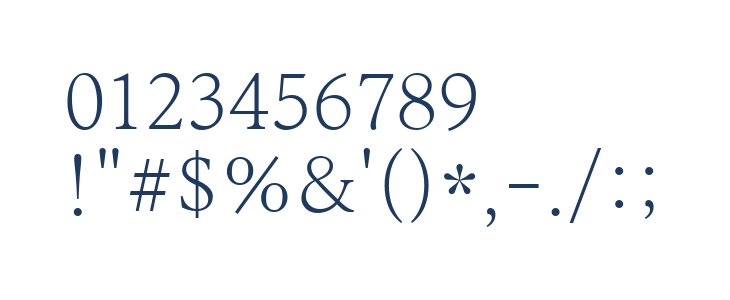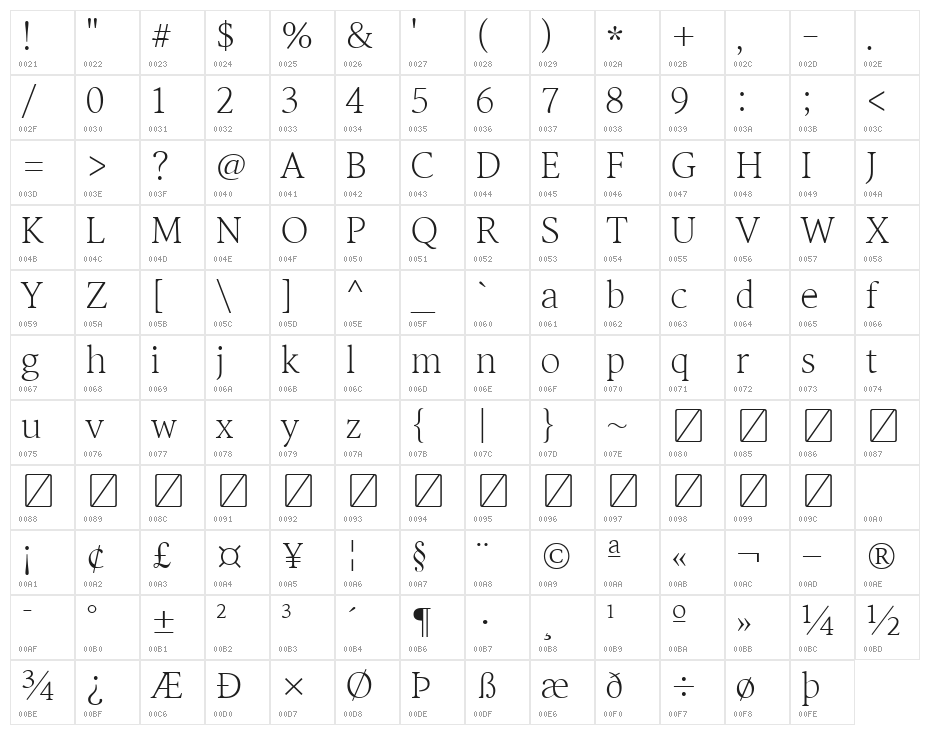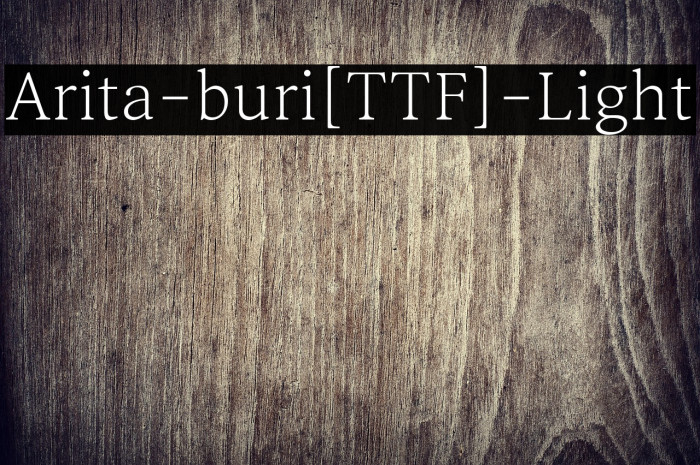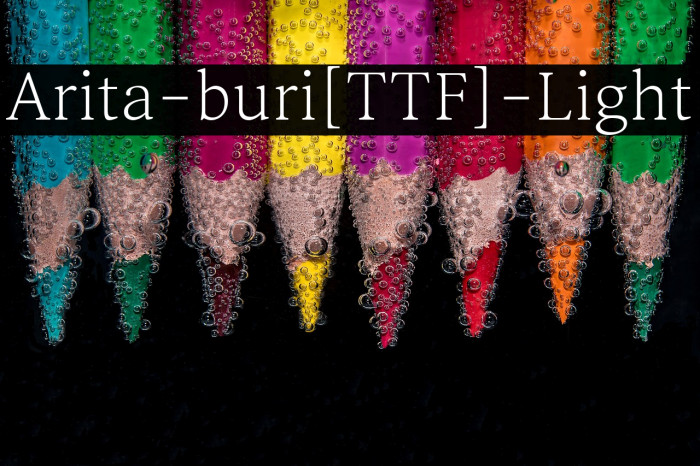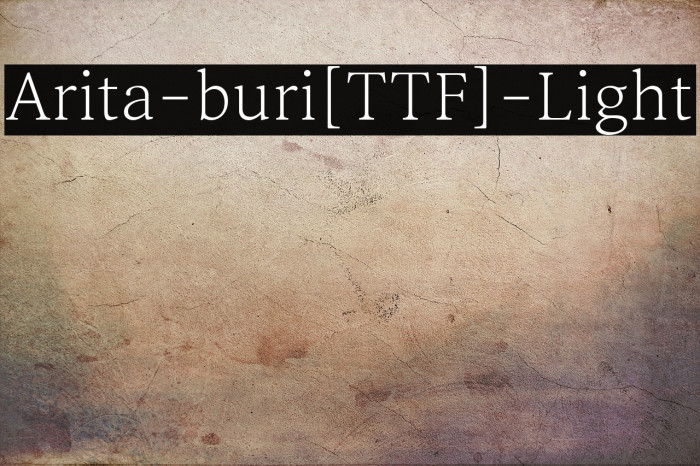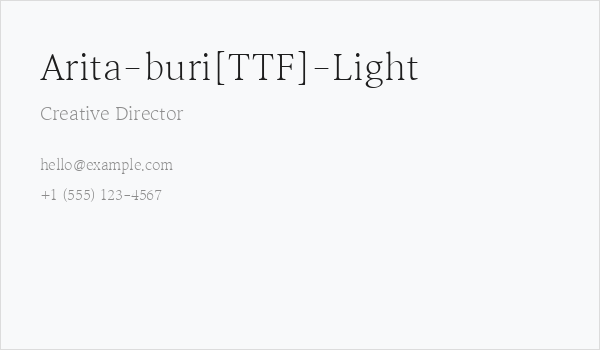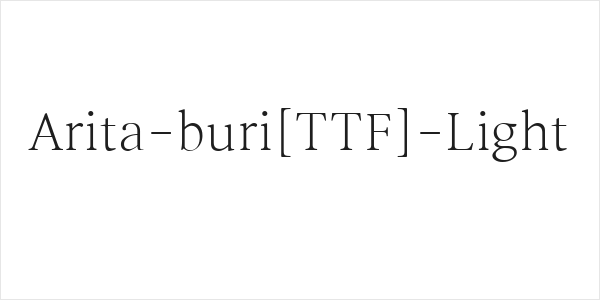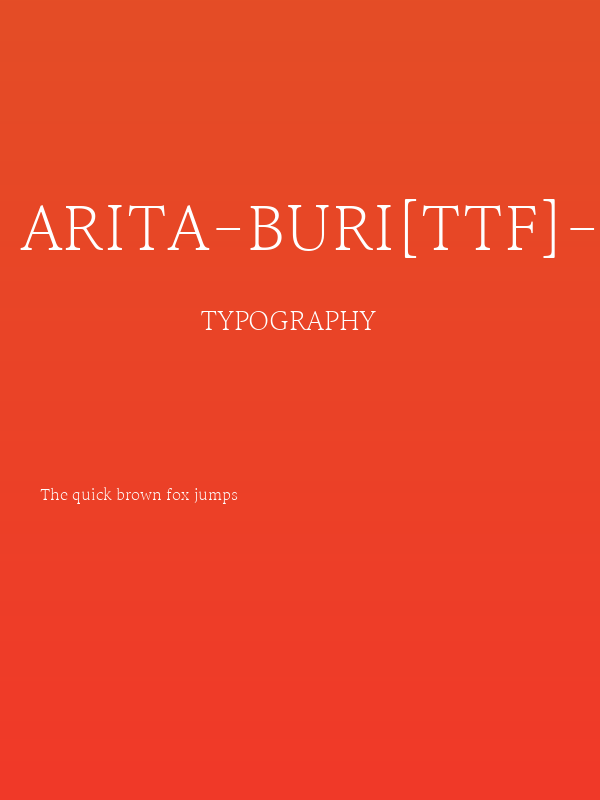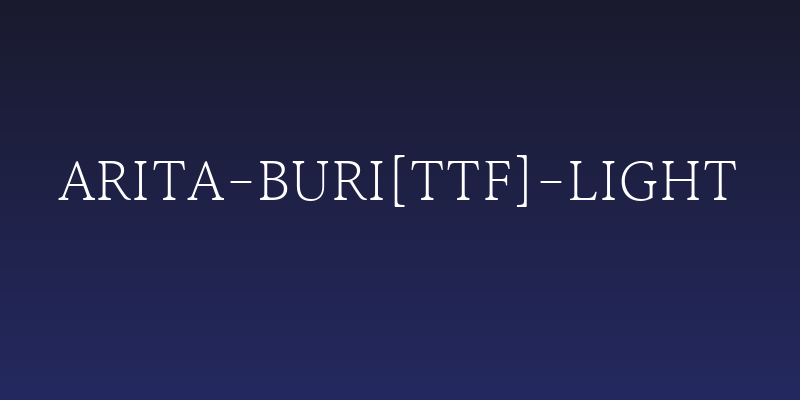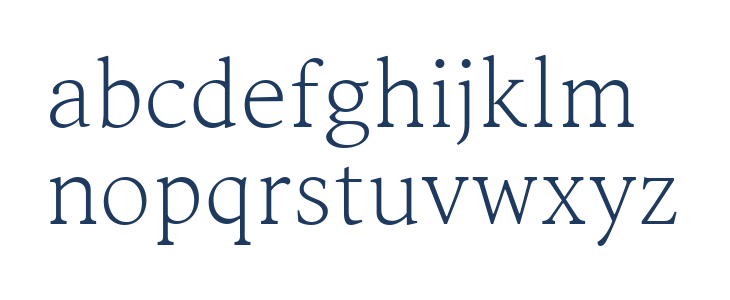
Arita-buri[TTF]-Light Font
Arita-buri[TTF]-Light Description
This font features a clean and elegant serif style with a light weight, offering a refined and sophisticated appearance. The characters are well-proportioned, with a slight contrast in stroke thickness that adds to its readability and charm. The uppercase letters are tall and stately, while the lowercase letters maintain a harmonious balance. The numerals are clear and distinct, making them suitable for various applications. The special characters are thoughtfully designed, complementing the overall aesthetic of the font.